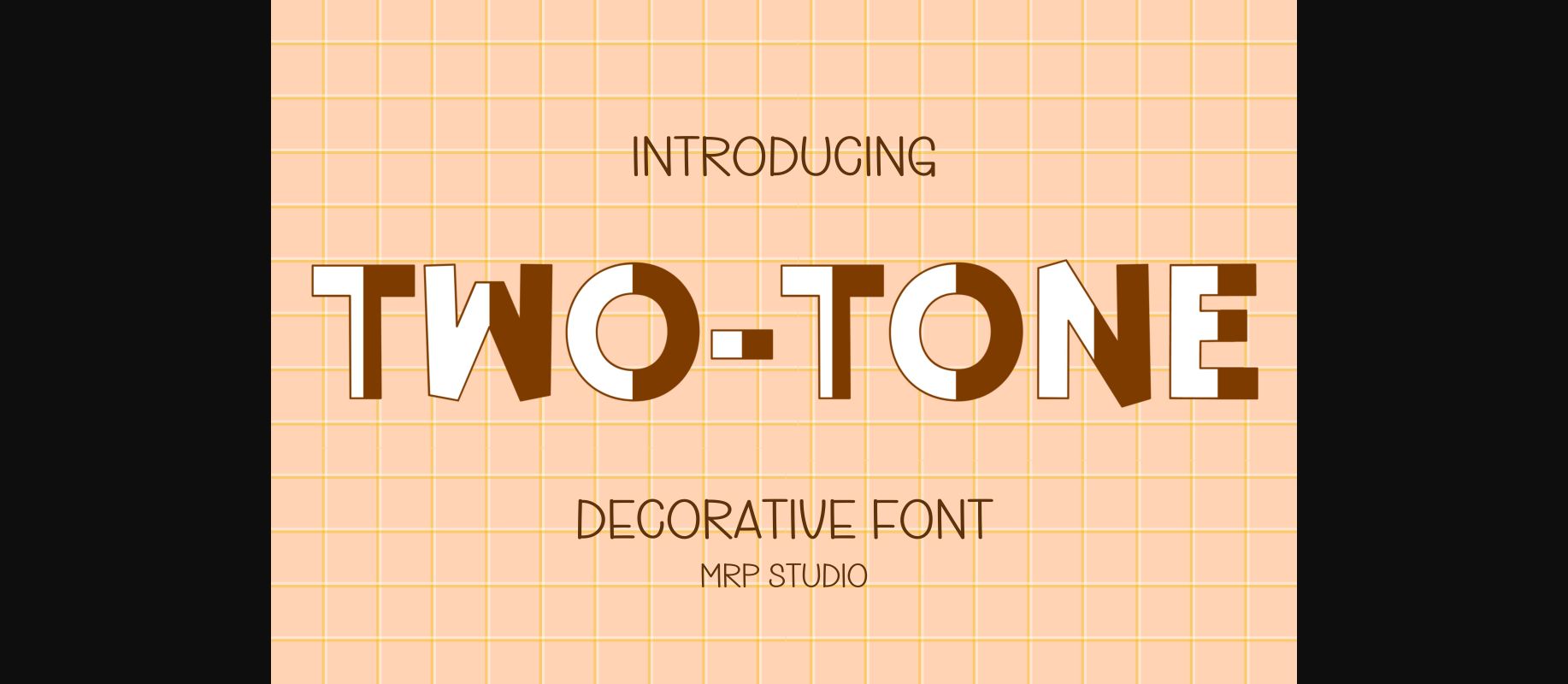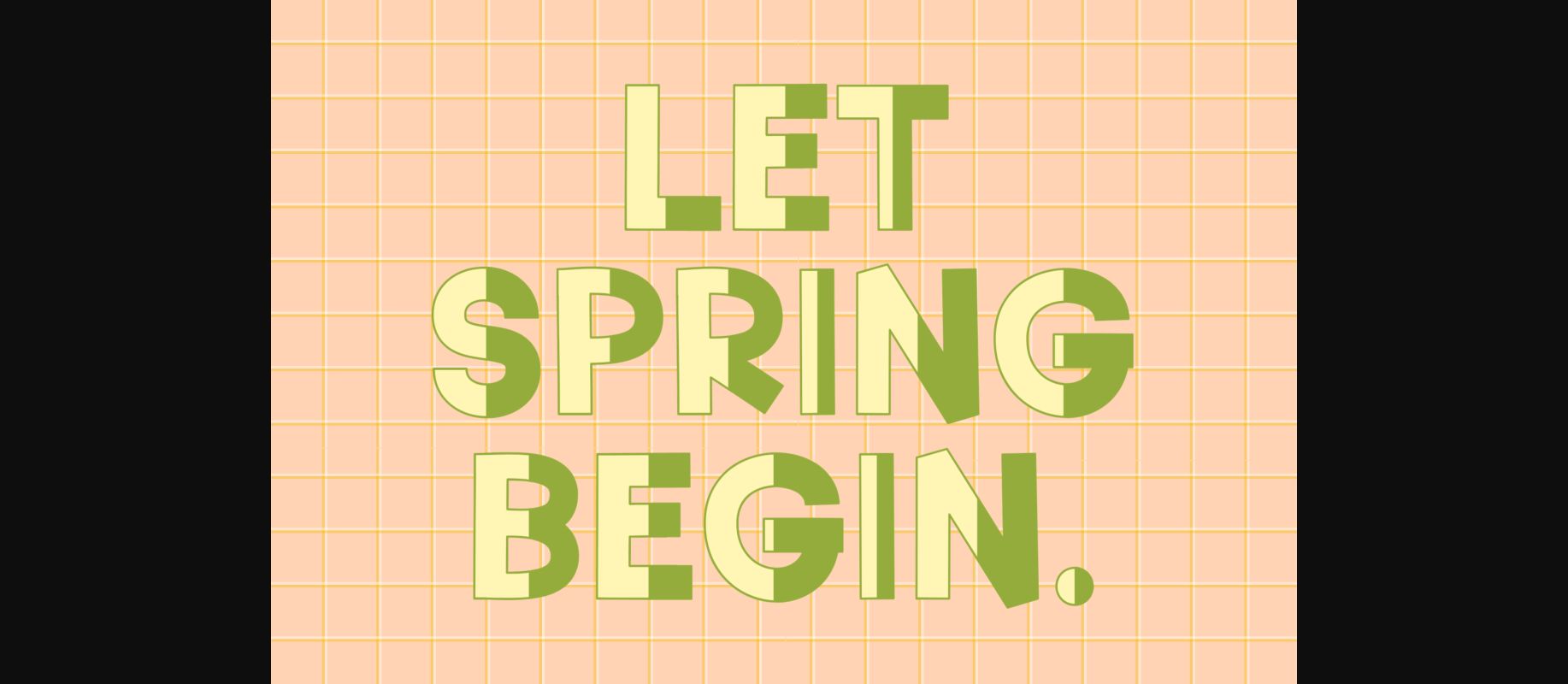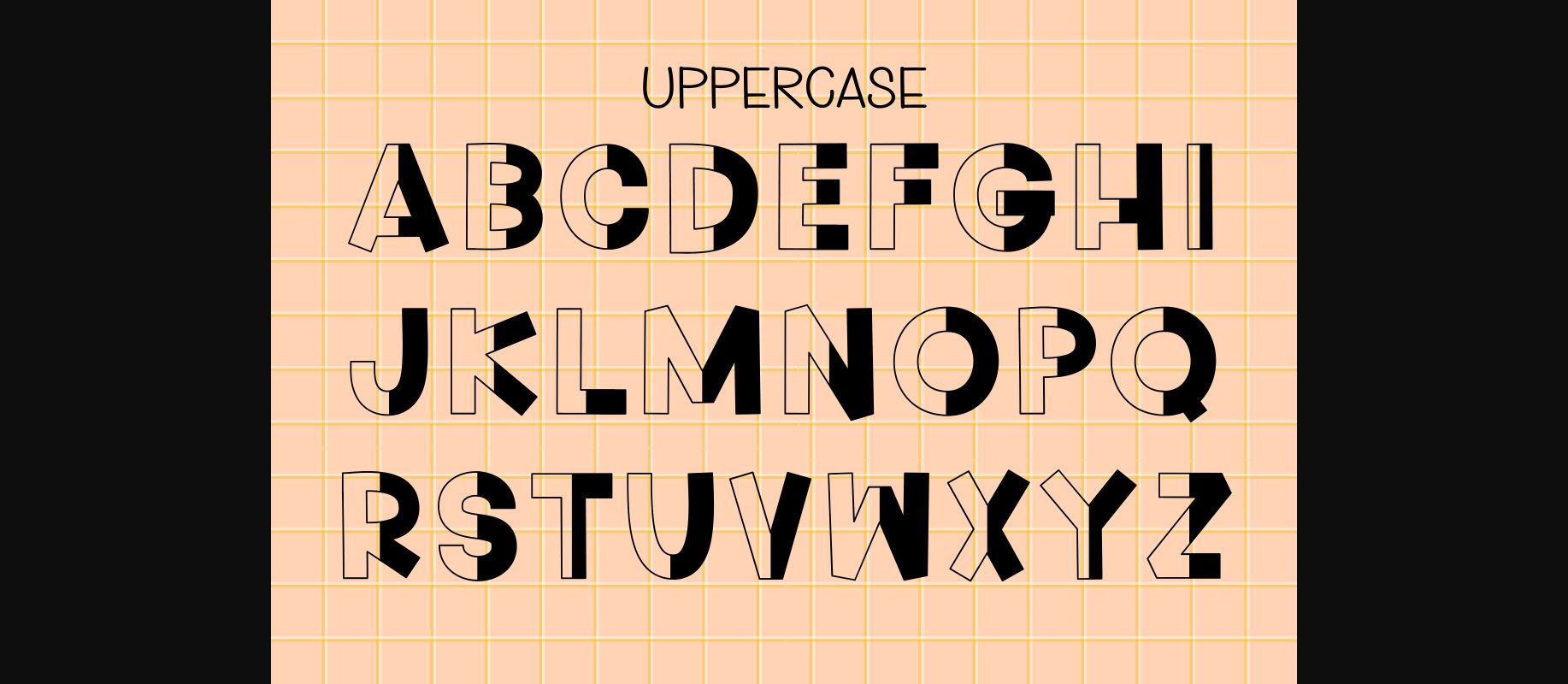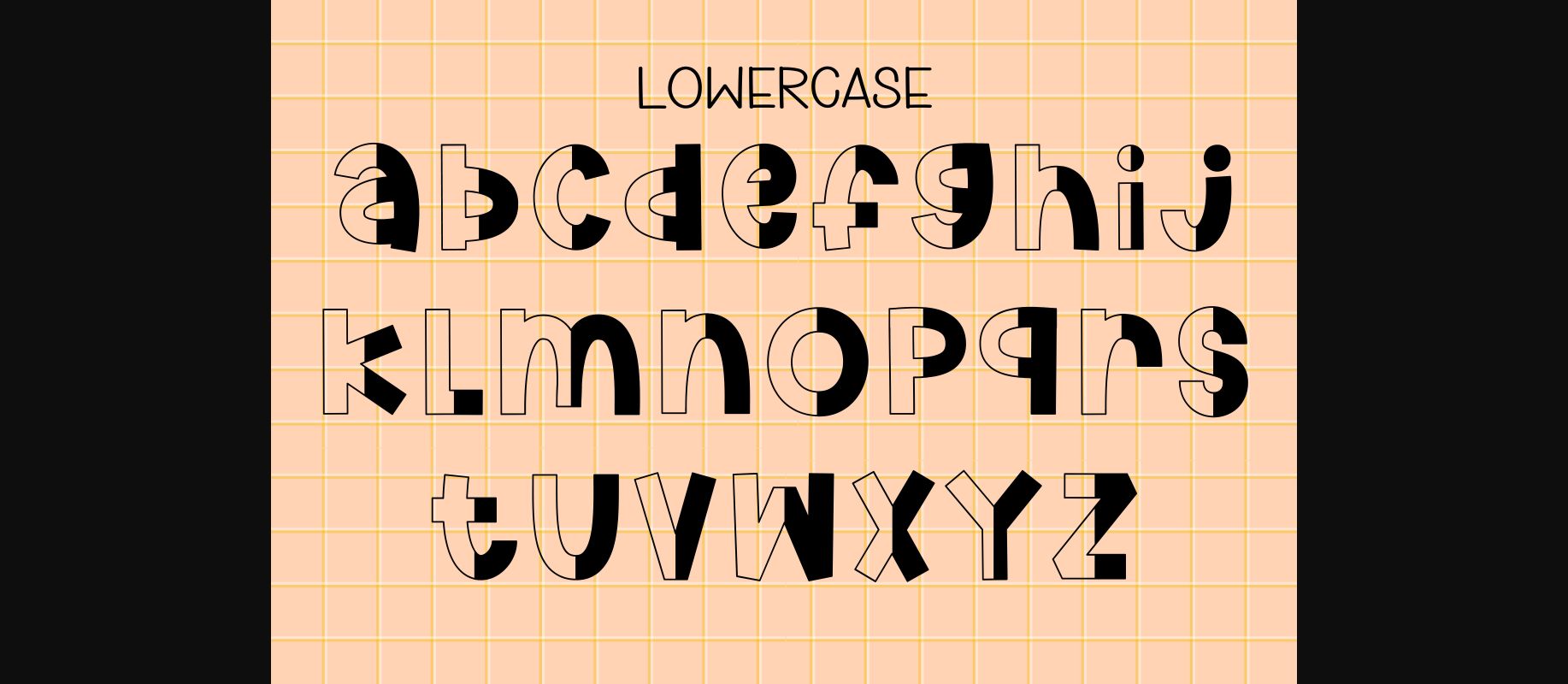
About Two Tone Font
Two Tone is a cute and unique decorative font that adds a touch of whimsy to any design project. With its playful curves and delightful details, Two Tone is the perfect choice for creating fun and charming designs. Whether you’re designing greeting cards, invitations, or social media graphics.